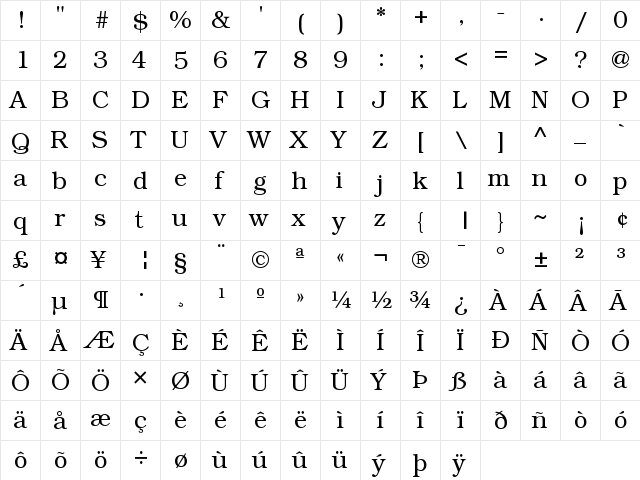
URW Bookman L Light Font Preview
URW Bookman L Light
Design Context for URW Bookman L Typeface
URW Bookman L offers clean, dependable letterforms without strong stylistic allegiance, making it a practical choice for designers who need flexibility. Its slender proportions lend an understated elegance to any composition.